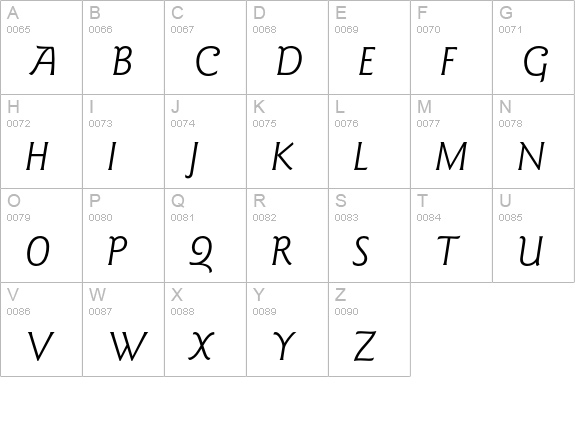
Goudy Sans* Book Italic is a comfortable, highly readable, italic variant in the Goudy typeface family \xE2\x80\x94 well suited to long-form body text, articles, and editorial content.
Goudy Sans* Book Italic is a stunning and elegant font that exudes sophistication and charm. With its sleek and stylish italicized design, this font is perfect for adding a touch of flair to any project. The gentle curves and slanted angles of Goudy Sans* Book Italic give it a sense of movement and grace, making it ideal for conveying a sense of modernity and creativity. What's even better is that Goudy Sans* Book Italic is available for free download at FontsMarket.com. Now you can easily access this beautiful font and enhance your designs without any cost. Whether you're working on a branding project, a poster design, or any other creative endeavor, Goudy Sans* Book Italic is sure to elevate your work and leave a lasting impression. Don't miss out on this amazing opportunity to add a touch of elegance to your projects with Goudy Sans* Book Italic!